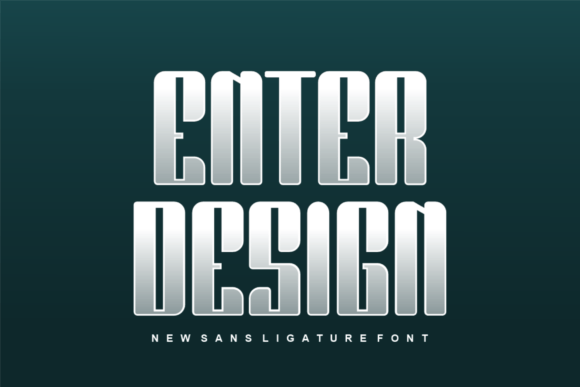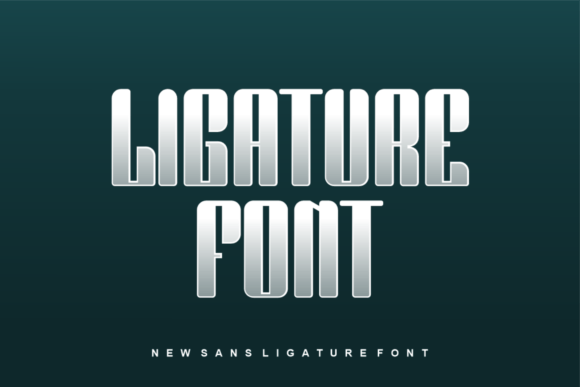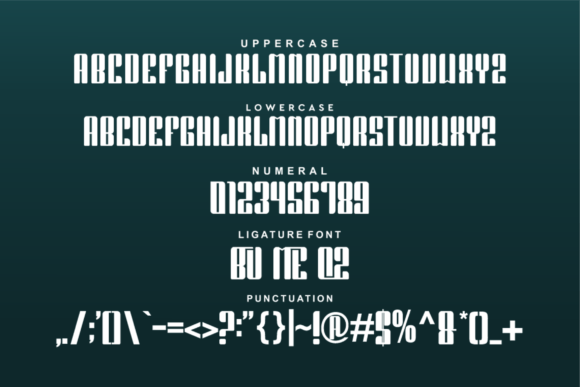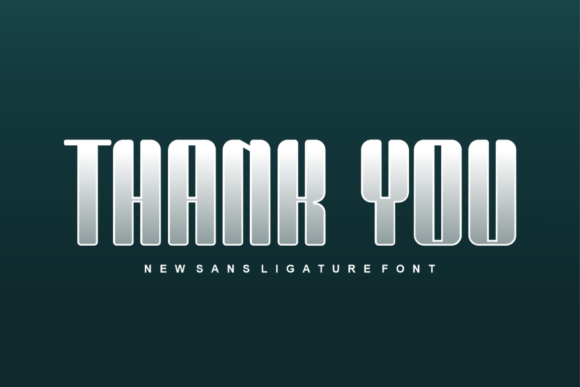
Bumercoz Font: Elevate Your Designs with a Bold and Assertive Sans Serif Display Font
Are you tired of using the same old fonts in your designs? Look no further than Bumercoz, a bold and assertive sans serif display font that’s sure to take your projects to the highest levels. In this article, we’ll dive into the world of Bumercoz, exploring its features, benefits, and uses, and why it’s a must-have for designers and crafters alike.
What is Bumercoz Font?
Bumercoz is a modern sans serif display font that’s designed to make a statement. Its bold and assertive style is perfect for headlines, titles, and any other text that needs to grab attention. With its clean and sleek lines, Bumercoz is a versatile font that can be used in a wide range of design projects, from branding and advertising to packaging and digital media.
Key Features of Bumercoz Font
- Bold and Assertive: Bumercoz is a font that demands attention. Its bold and assertive style is perfect for making a statement and adding impact to your designs.
- Sans Serif: Bumercoz is a sans serif font, which means it doesn’t have any decorative lines or flourishes. This makes it clean, modern, and highly legible.
- Display Font: Bumercoz is designed specifically for display use, making it perfect for headlines, titles, and other text that needs to stand out.
- Clean and Sleek: Bumercoz has a clean and sleek design that’s perfect for modern designs. Its lines are smooth and flowing, making it highly legible and easy to read.
Benefits of Using Bumercoz Font
- Adds Impact: Bumercoz is a font that’s designed to make a statement. Its bold and assertive style adds impact to your designs and grabs attention.
- Increases Legibility: Despite its bold style, Bumercoz is highly legible and easy to read. This makes it perfect for use in headlines and titles, where clarity is essential.
- Versatile: Bumercoz is a versatile font that can be used in a wide range of design projects. Whether you’re working on a branding project, an advertising campaign, or a digital media project, Bumercoz is a great choice.
- Modern and Fresh: Bumercoz has a modern and fresh design that’s perfect for designers and crafters who want to stay ahead of the curve.
Uses of Bumercoz Font
Bumercoz is a versatile font that can be used in a wide range of design projects. Here are just a few examples:
- Branding: Use Bumercoz as a logo font or in branding materials such as business cards and brochures.
- Advertising: Bumercoz is perfect for use in advertising campaigns, including print ads, digital ads, and social media ads.
- Packaging: Use Bumercoz on product packaging to add impact and make your products stand out.
- Digital Media: Bumercoz can be used in digital media projects such as video titles, social media graphics, and website headers.
How to Use Bumercoz Font
- Use it as a Headline Font: Bumercoz is perfect for use as a headline font. Use it to add impact and grab attention.
- Pair it with Other Fonts: Bumercoz can be paired with other fonts to create a unique and interesting design.
Bumercoz is a bold and assertive sans serif display font that’s perfect for designers and crafters who want to take their projects to the highest levels. With its clean and sleek lines, Bumercoz is a versatile font that can be used in a wide range of design projects. Whether you’re working on a branding project, an advertising campaign, or a digital media project, Bumercoz is a great choice. So why not fall in love with Bumercoz and bring your projects to life?